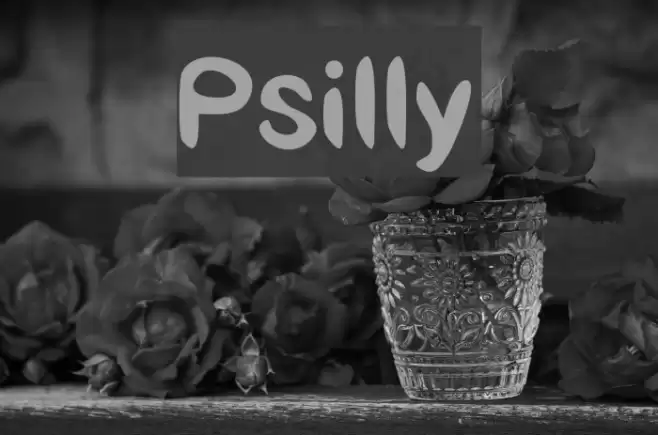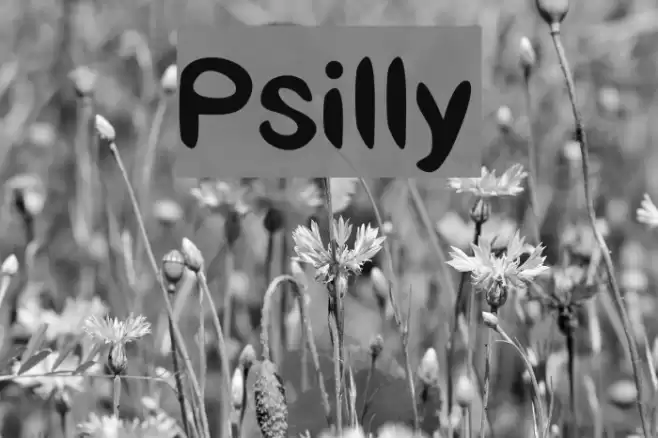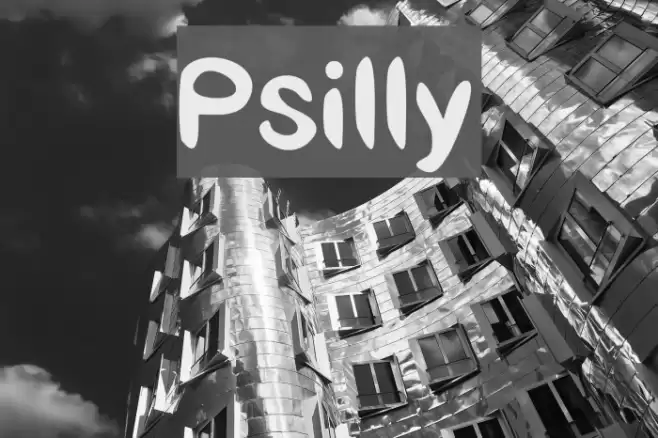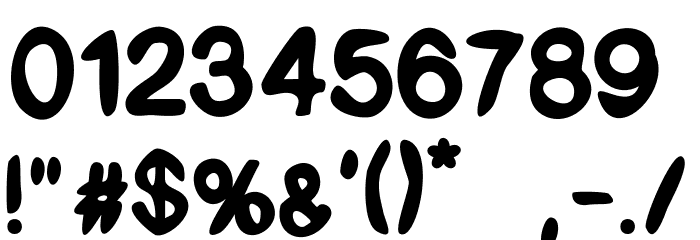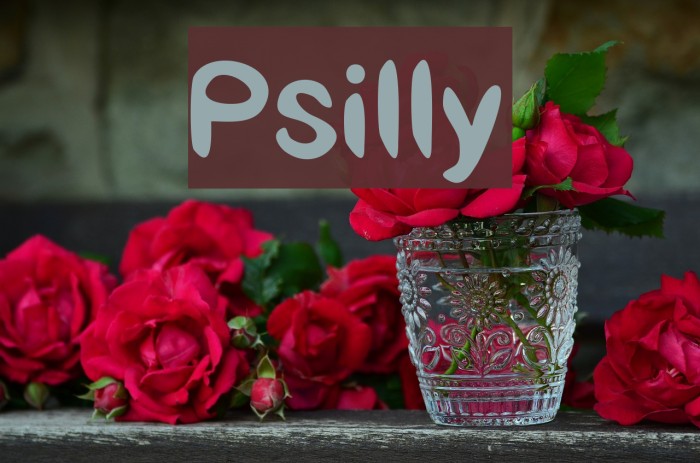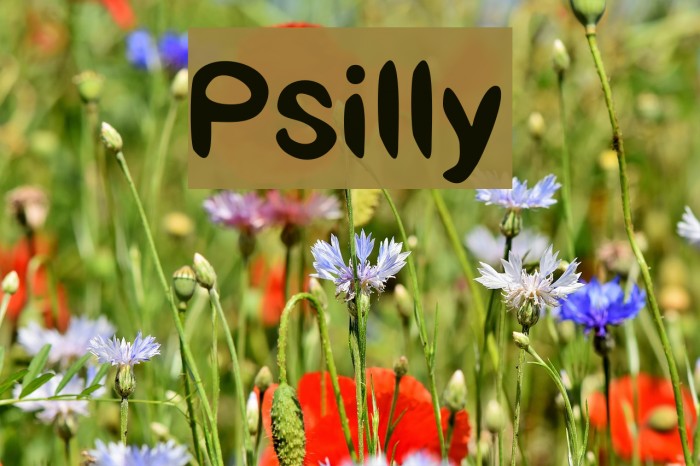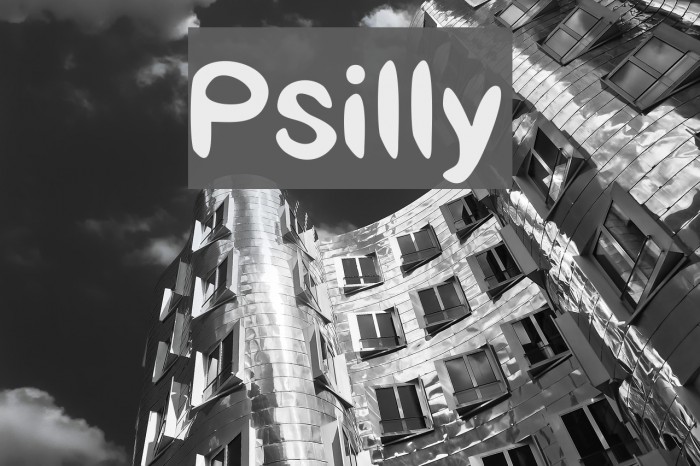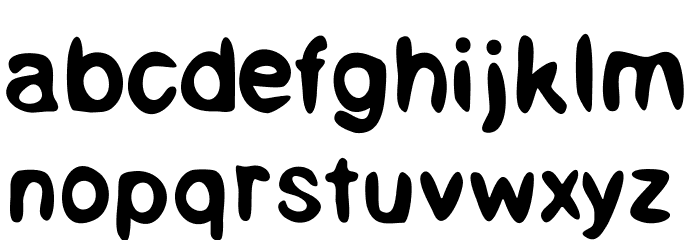
Psilly Font
Psilly Description
This playful and bold font features a whimsical, hand-drawn style with rounded edges and a bubbly appearance. The characters are thick and uniform, creating a sense of fun and informality. Each letter is distinct, with a slightly irregular shape that adds to the font's charm. The numbers and special characters maintain the same playful aesthetic, making it suitable for creative and casual projects. The font's overall appearance is lively and energetic, perfect for capturing attention and conveying a sense of joy.
A playful, hand-drawn font with rounded, bubbly characters from Uncategorized fonts.
- Proposed Projects: Ideal for children's books, playful branding, party invitations, and creative posters.
- Overall Style: Playful